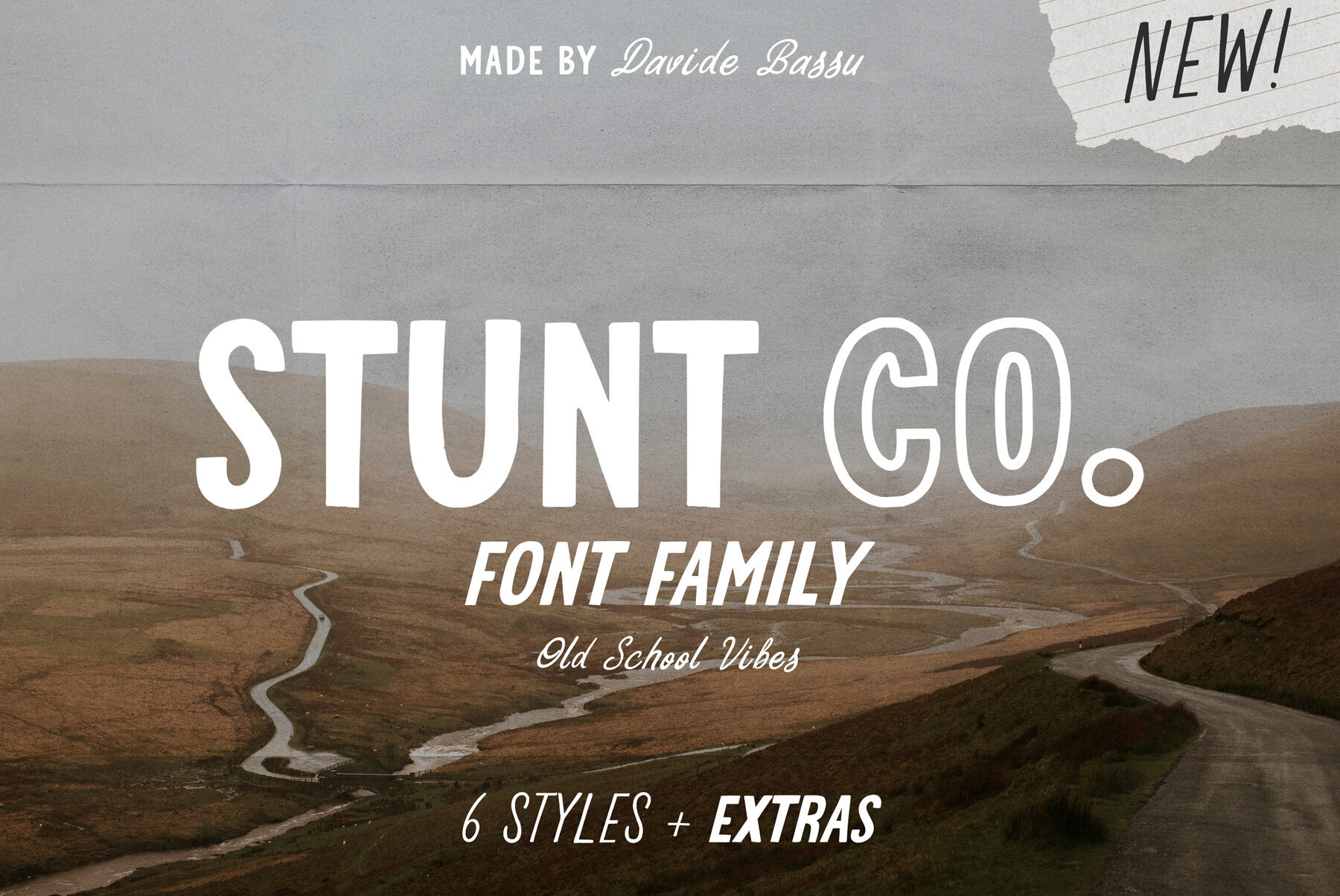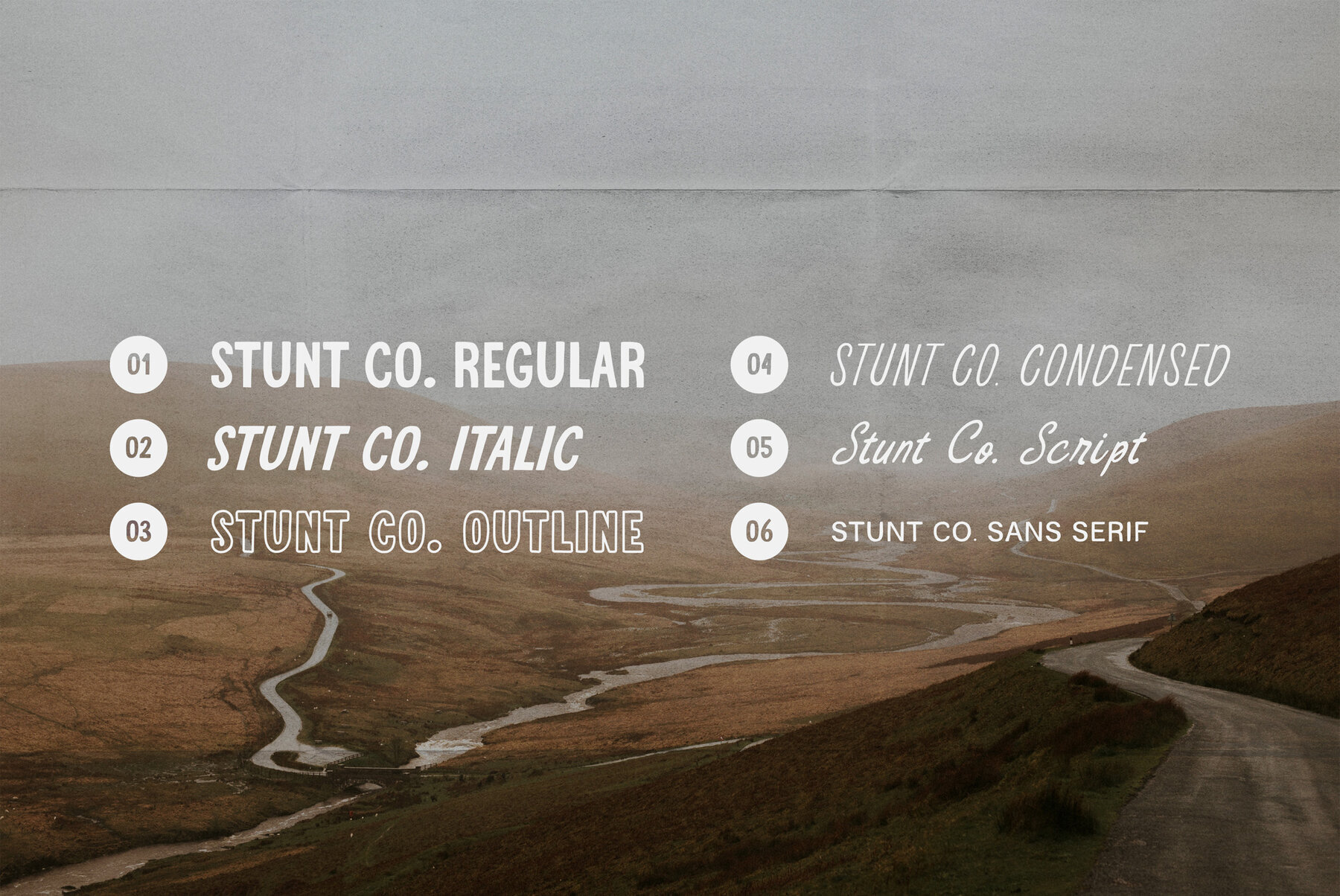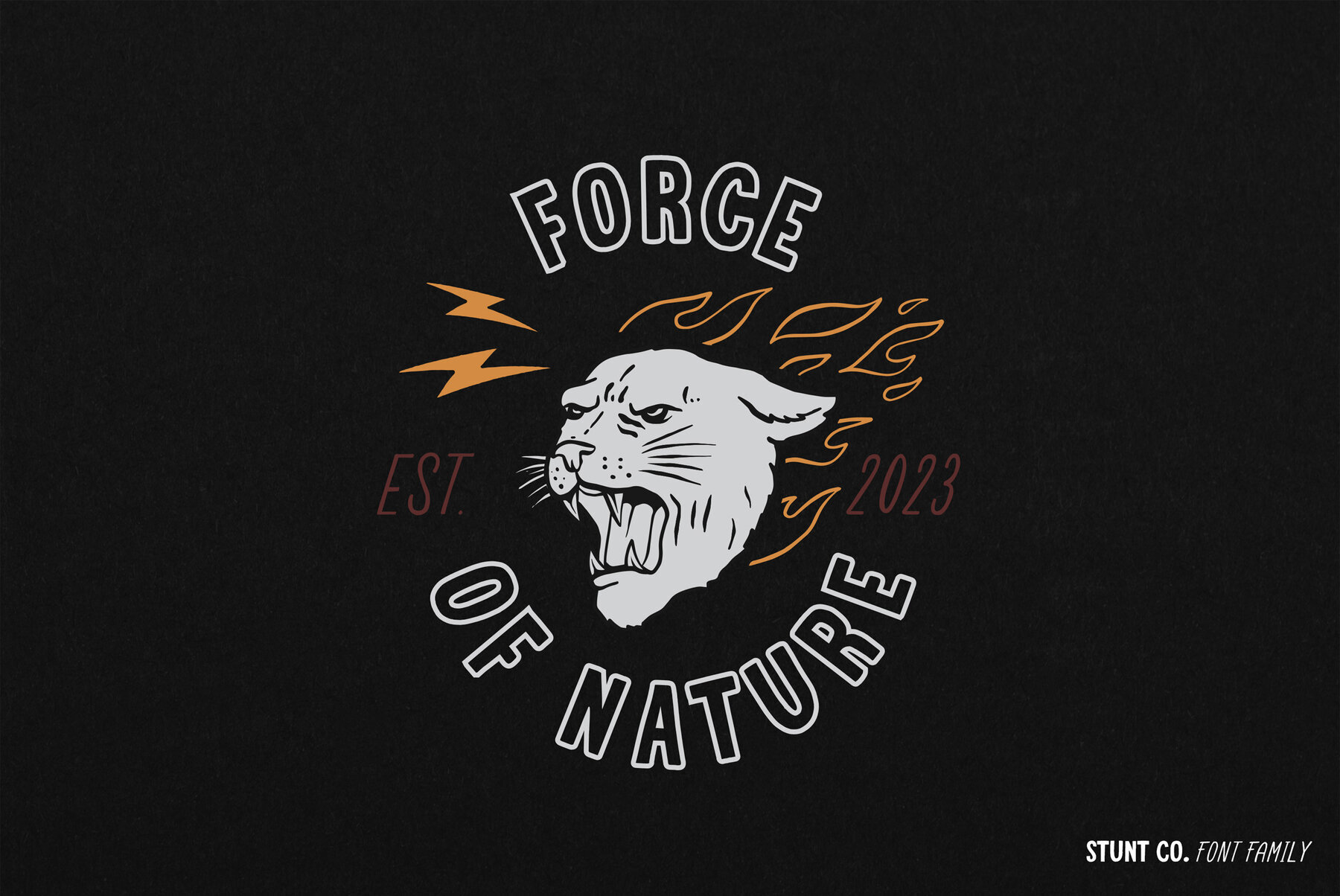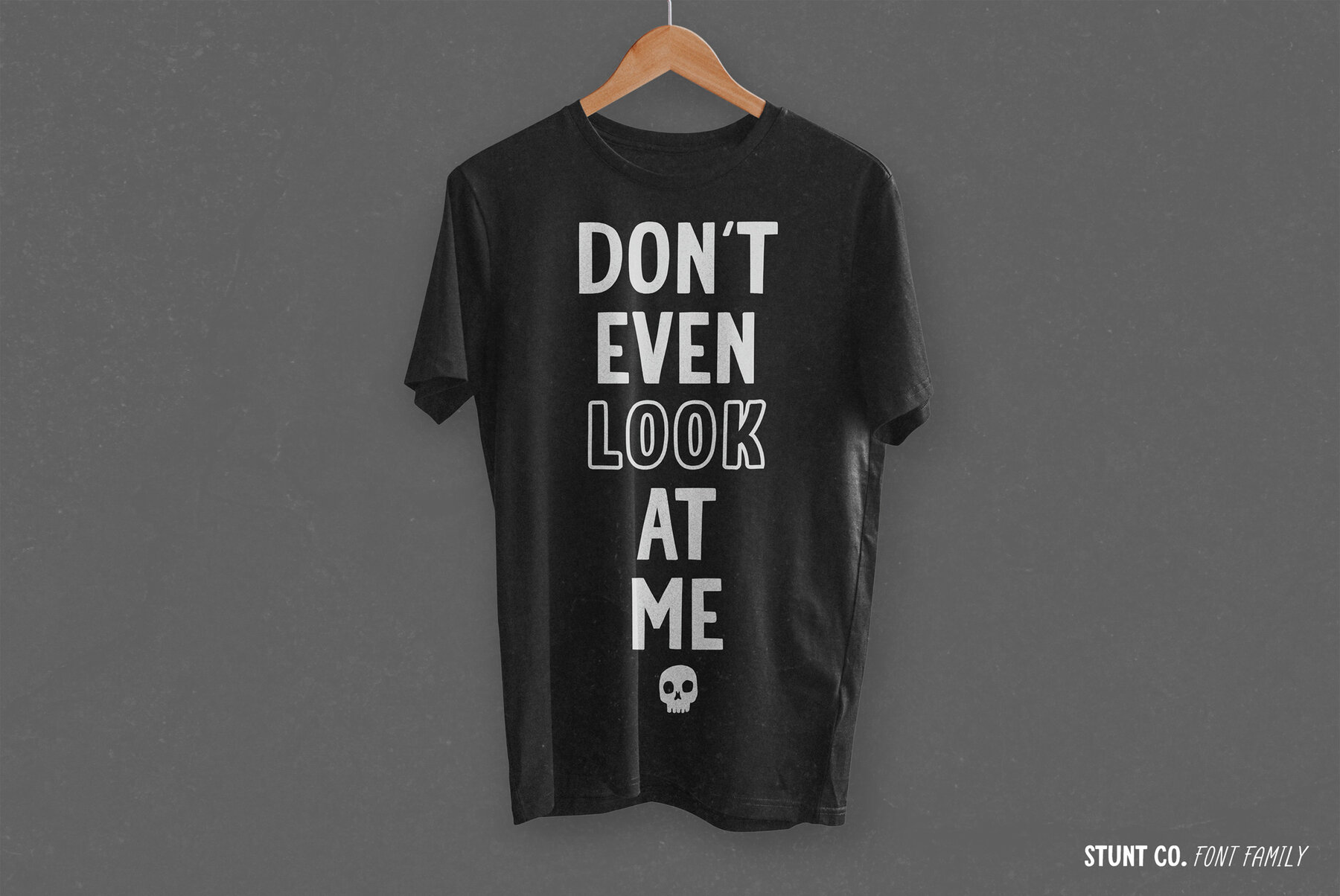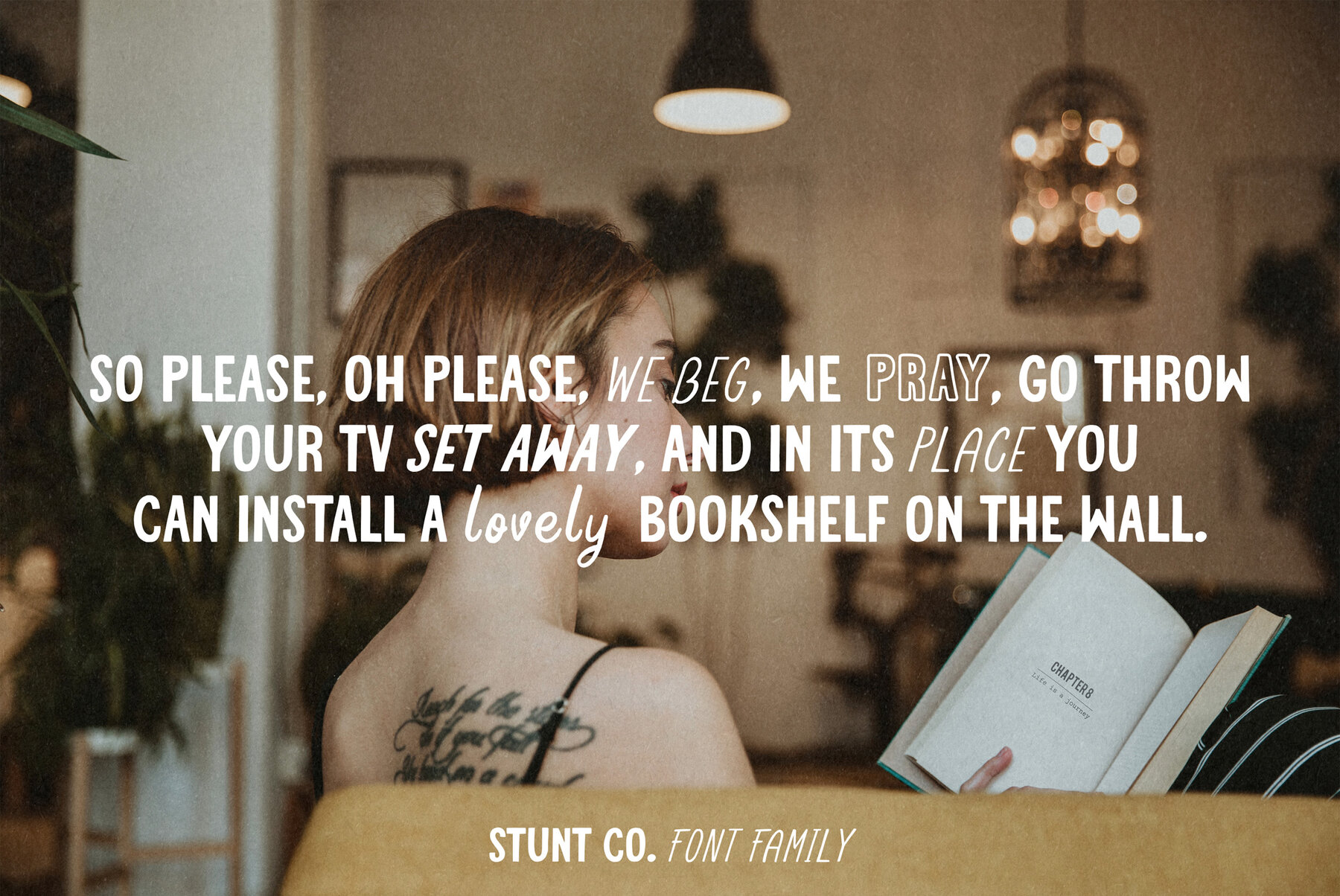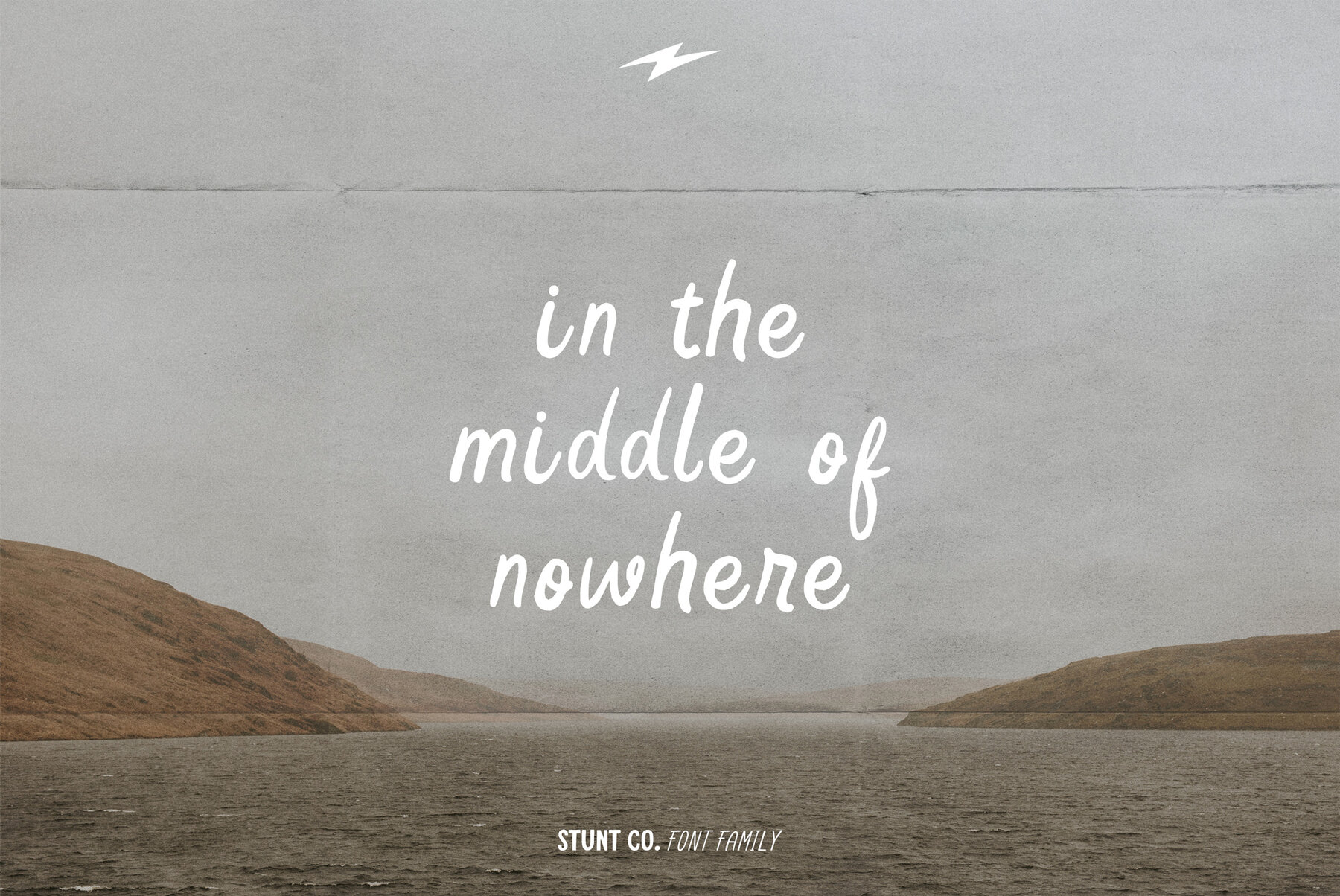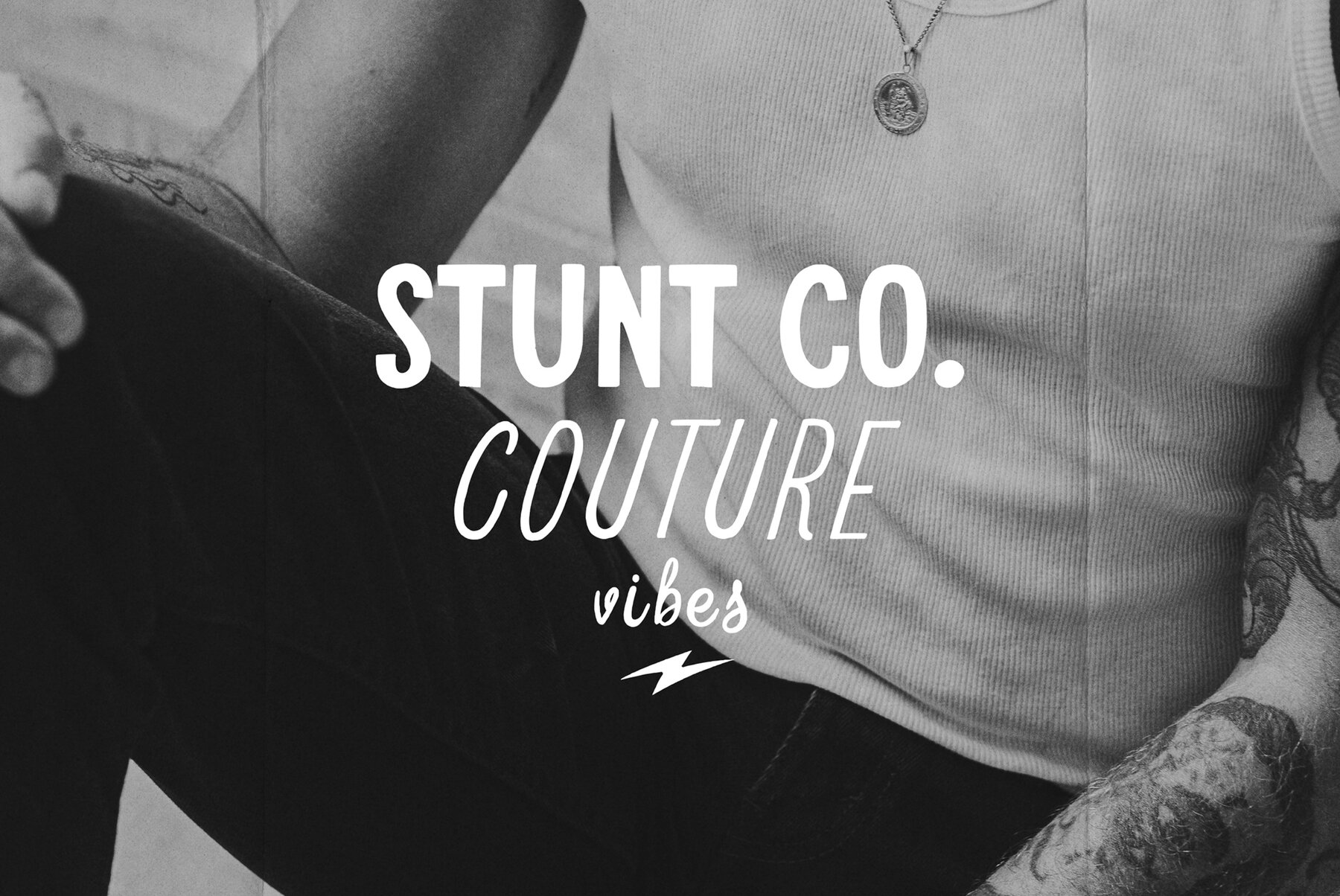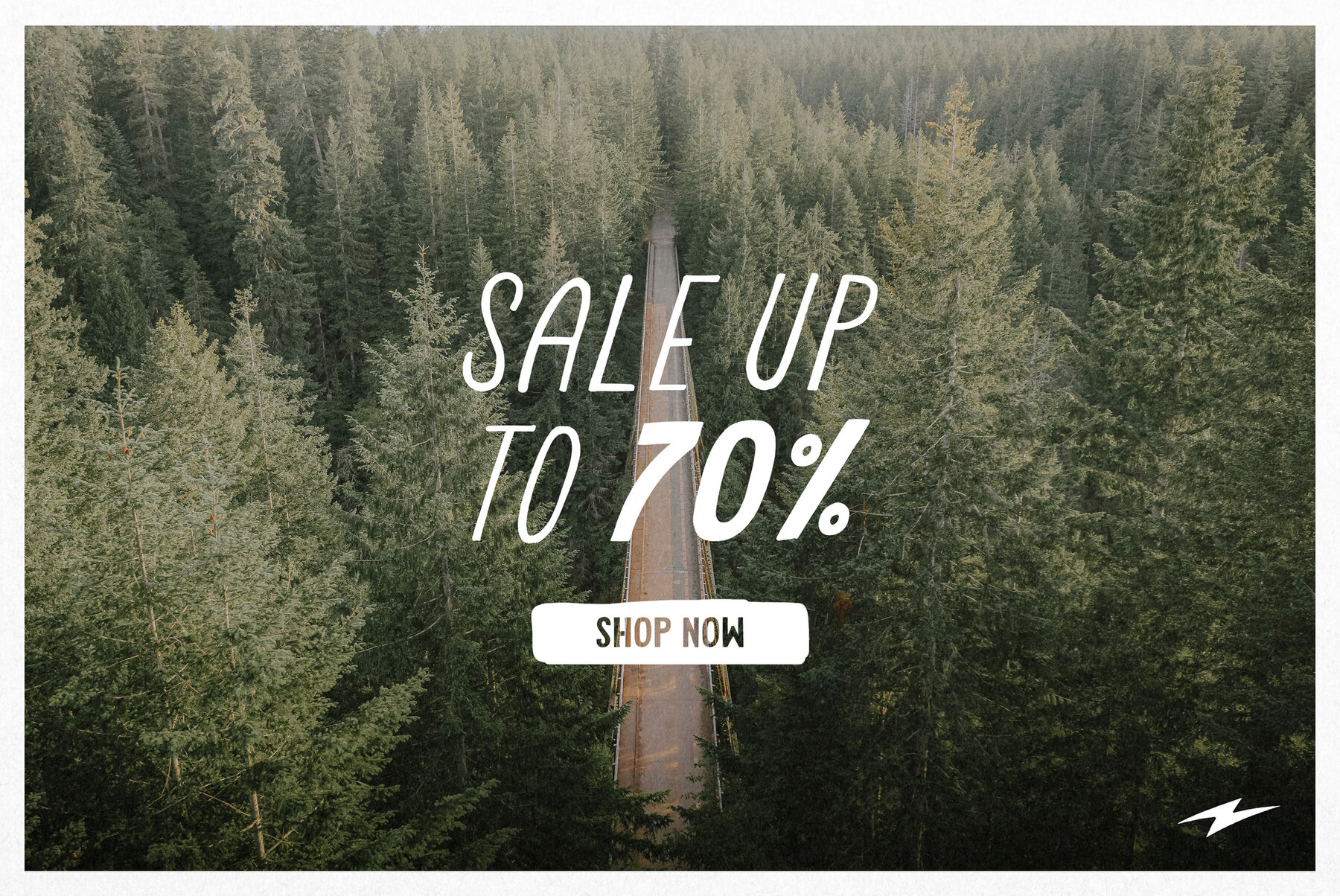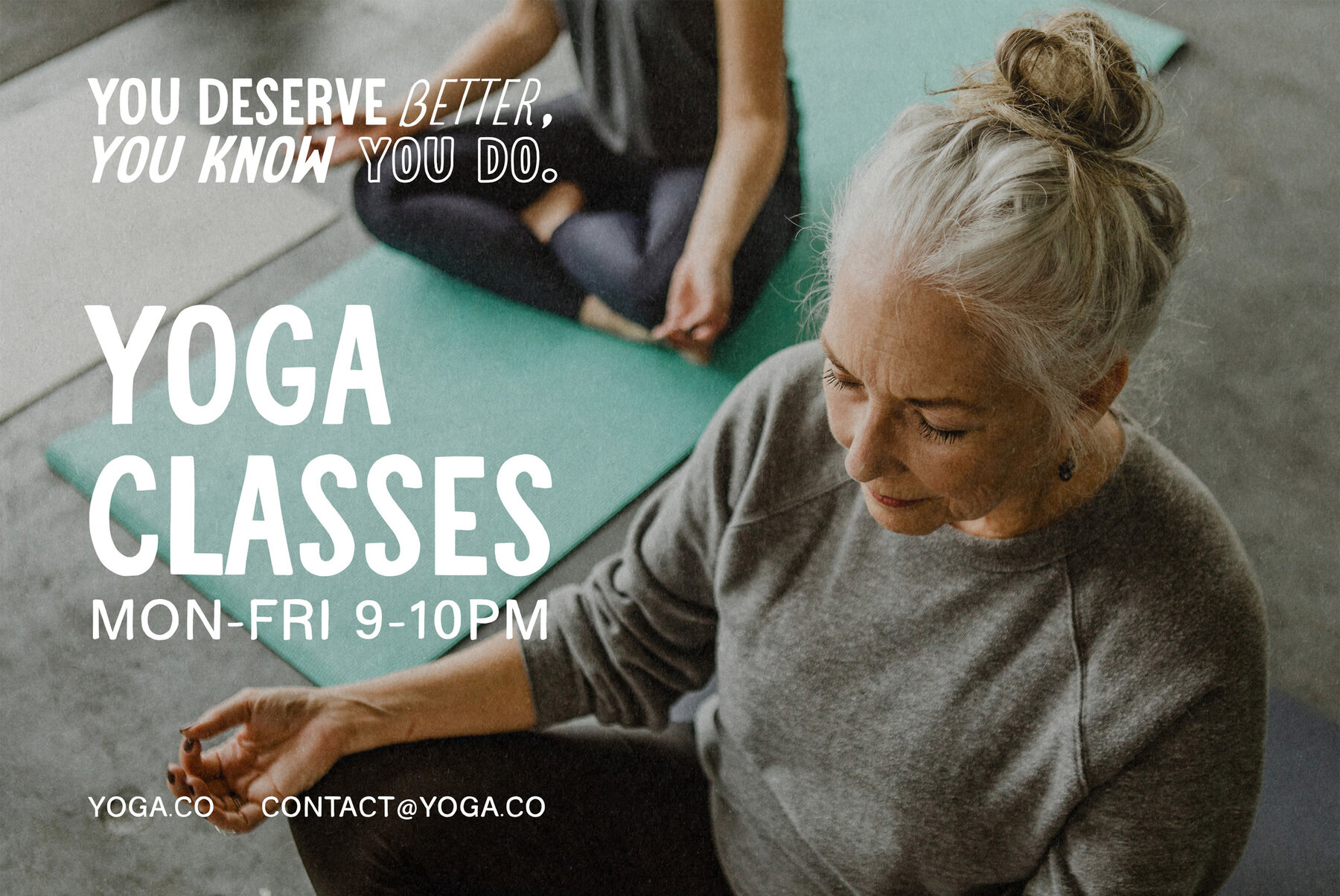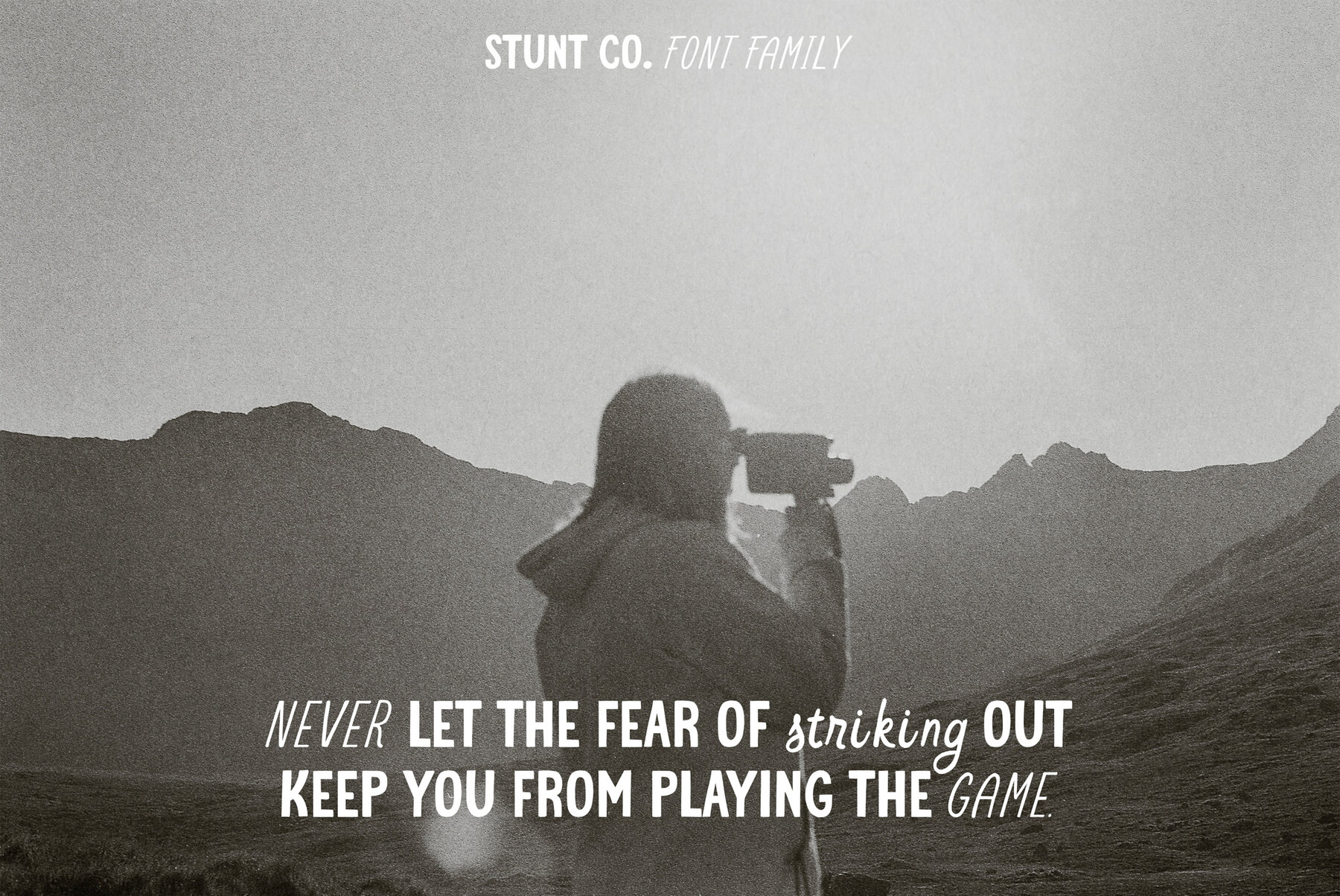
Stunt Co Font
With such a diverse range on offer, this typeface offers everything you need to promote your brand with retro designs for clothing brands, printing materials, social media profiles and all your logo and branding needs. Creative digital marketing is made easy with these fonts— adding a unique graphic element to any marketing campaign!